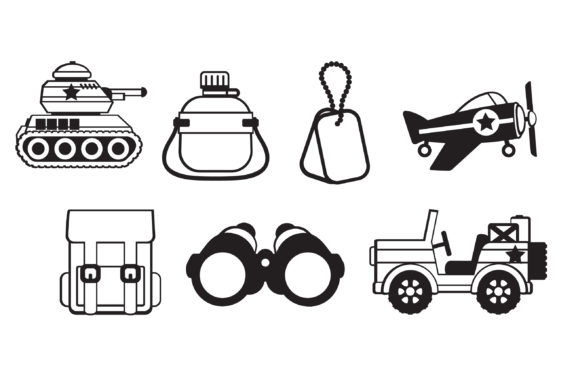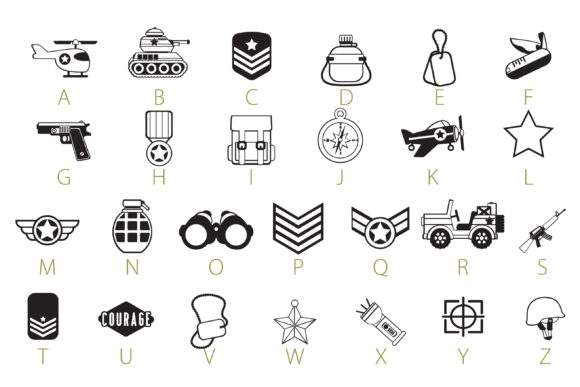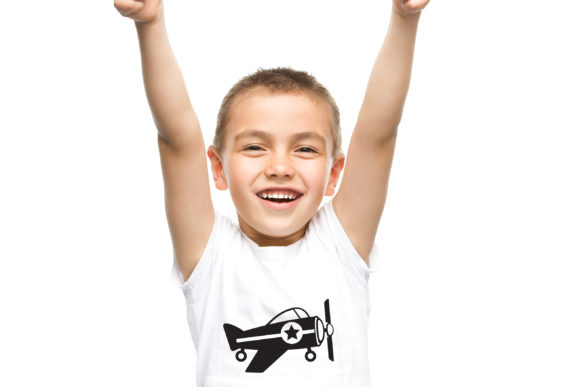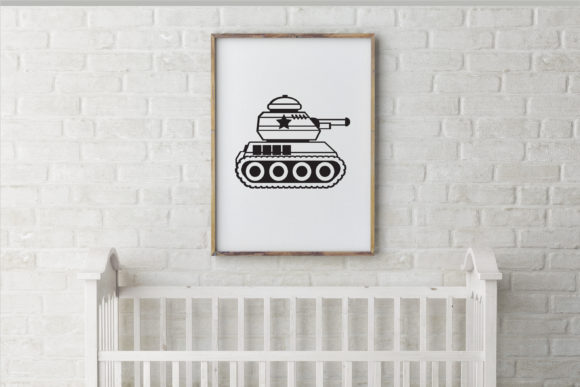
The Ultimate Camo Crew Font Guide: Adding a Military Twist to Your Designs
I’ll never forget the time I was working on a design project for a client who wanted a bold, edgy look. I had a clear vision in mind, but I was struggling to find the perfect font to bring it all together. That’s when I stumbled upon the Camo Crew Font, a dingbat font that has 26 army-related images. It was love at first sight! 💡
In this article, I’ll share my experience with the Camo Crew Font, its features, and how to make the most of it in your design projects. Whether you’re a designer, crafter, or creative hobbyist, this font is sure to add a military twist to your work.
- Unique and quirky army-related images that add a touch of personality to your designs 🎨
- 26 glyphs to choose from, giving you plenty of creative options 🤩
- Easily pairs with a variety of fonts to create a cohesive look 📚
- Perfect for designs that require a bold, edgy feel 💥
- Limited to army-related images, which might not be suitable for all design projects 🤔
- Some glyphs might be a bit too bold or overpowering for certain designs ⚠️
The Camo Crew Font was designed with the military aesthetic in mind. The designer, inspired by the bold and rugged look of military equipment, created a font that would add a touch of personality to any design project. With its unique glyphs and bold feel, the Camo Crew Font is perfect for designers who want to add a military twist to their work.
Q: What type of designs is the Camo Crew Font best suited for?
A: The Camo Crew Font is perfect for designs that require a bold, edgy feel, such as military-themed designs, outdoor gear branding, or bold typography projects.